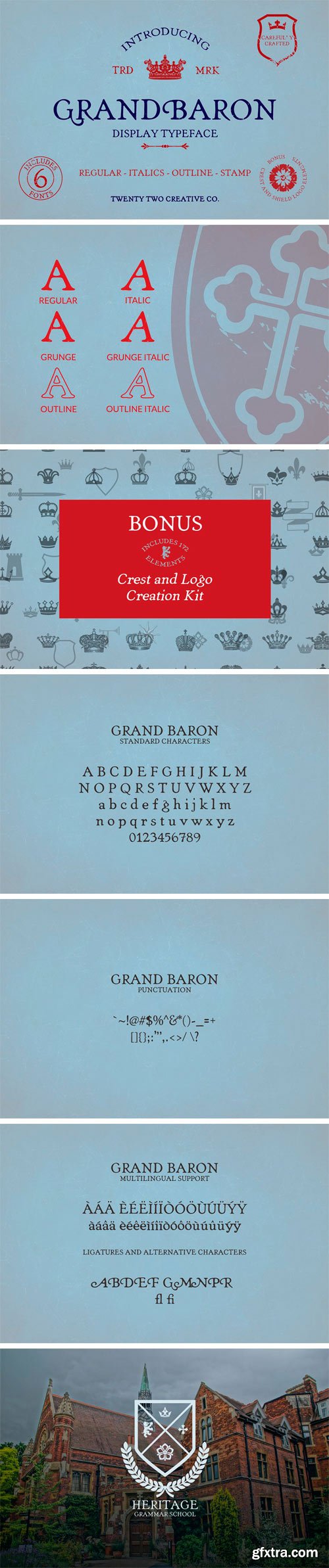
Introducing: Grand Baron. This is an original serif typeface inspired by medieval times and aristocracy. There are six fonts included: Regular, Italic, Grunge, Grunge Italic, Outline, and Outline Italic. Grand Baron is suitable for branding, t-shirt design, print, business cards, logo, poster, photography, quotes etc.